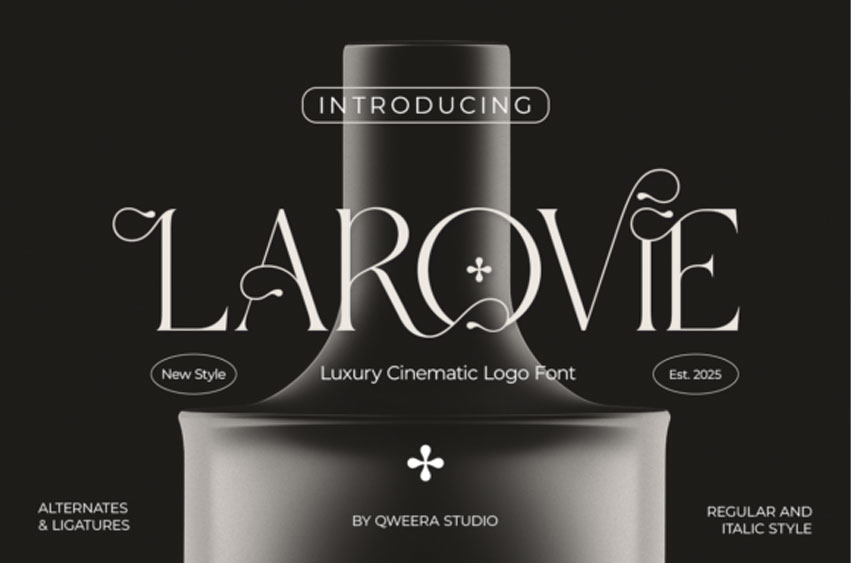
Larovie Font is a luxury cinematic serif typeface designed with elegant structure and premium decorative accents. Perfect for logos, editorial layouts, packaging, fashion branding, and upscale advertising.
Its refined letterforms and dramatic personality create a powerful visual identity while maintaining readability and sophistication. Ideal for creatives seeking elegant luxury typography.